Glitch text stacks extra Unicode combining marks onto your letters to create a corrupted, static-like look: the same underlying technique as zalgo and creepy text, tuned here toward a more digital/cyber feel.
Creepy (Glitch) is the standard middle-intensity option; Glitch Slash adds a strikethrough on top for an even more broken look.
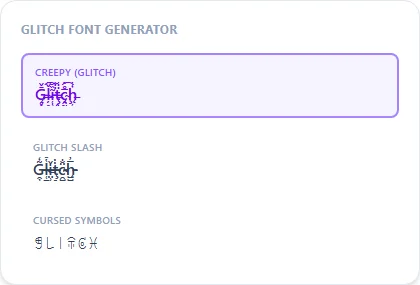
Same combining-mark technique, digital framing
This is the same Unicode combining-mark stacking used for zalgo and creepy text, but curated here toward a cyber/hacked read rather than horror. The visual chaos suggests digital corruption or screen static instead of something cursed. Phonetic Alien pairs well alongside it for a more otherworldly, code-like feel, though it's a separate lookalike-alphabet substitution rather than the same marking technique.
Glitch vs. Glitch Slash
Creepy (Glitch) applies the standard middle-intensity combining marks. Glitch Slash adds a strikethrough line through the already-distorted text for a look that reads as more actively broken or redacted.
Is Phonetic Alien related to the glitch effect?
It's a separate lookalike-alphabet style rather than a combining-mark effect, but it reads well alongside glitch text for a more otherworldly, corrupted-language feel.
Will glitch text look different every time I copy it?
No, the marks are generated from your text itself, so the same input always produces the same output.
Good for a hacked-account joke post or cyberpunk theme?
Yes — Creepy (Glitch) or Glitch Slash both suit that context well, especially paired with a monospace or Phonetic Alien username.
Can I dial back the intensity if it's too hard to read?
Yes, Zalgo Medium (used for Creepy/Glitch here) is noticeably milder than Zalgo Wild on the freaky font generator and creepy text generator pages.